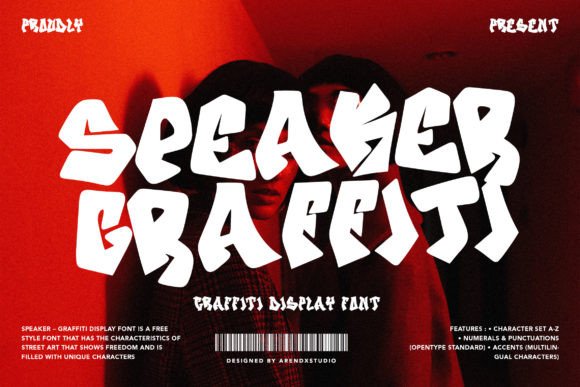
Unleash a Symphony of Expression with Speaker Font: Where Creativity Meets Authenticity
In the realm of typography, where letters dance and words come alive, there exists a font so bold, so captivating, it demands attention like a rockstar commanding a stage. Enter Speaker Font, a display font family that speaks volumes with its raw energy and urban edge. Crafted by the visionary minds at Arendxstudio, Speaker Font is not just a collection of characters; it's an artistic revolution, a gateway to a world where creativity reigns supreme.
Speaker Font: The Heartbeat of Street Art Reincarnated
Picture yourself strolling through the vibrant streets of a bustling city, where colorful murals adorn every corner, and graffiti tags whisper stories untold. Speaker Font embodies this captivating spirit of urban art, capturing the essence of street culture in its every stroke and curve. Its bold and expressive letters, reminiscent of spray-painted masterpieces, ignite a sense of rebellion and individuality, urging you to break free from the mundane and embrace your inner artist.
A Typeface Tailored for Your Thank-You Expressions
In the symphony of human emotions, gratitude holds a special place, a melody that resonates with hearts across the globe. With Speaker Font, your thank-you notes will transcend mere words, transforming into heartfelt expressions of appreciation. The font's playful and energetic style adds a personal touch, conveying your sincerity and warmth in a way that traditional fonts often fail to capture. Let Speaker Font be your ambassador of gratitude, spreading joy and leaving a lasting impression on those who receive your heartfelt messages.
Beyond Boundaries: Speaker Font's Limitless Versatility
Speaker Font isn't confined to the realm of thank-you notes; its versatility extends far beyond, like a chameleon adapting to its surroundings. Its bold presence lends itself perfectly to a myriad of creative endeavors. Unleash your imagination and utilize Speaker Font to craft eye-catching posters that demand attention, design logos that ooze personality, or create social media posts that pop with an urban flair. Speaker Font is your creative companion, pushing boundaries and transforming your designs into masterpieces.
A Visual Symphony for the Bold and Expressive
With Speaker Font as your creative ally, you'll embark on a typographic adventure, exploring realms where boldness meets authenticity. Its unique style, reminiscent of street art and graffiti, will infuse your designs with an undeniable energy, resonating with audiences who appreciate the raw and unconventional. Speaker Font is more than just a font; it's a statement of individuality, a testament to the power of self-expression. Join the creative revolution and let Speaker Font elevate your designs to new heights.